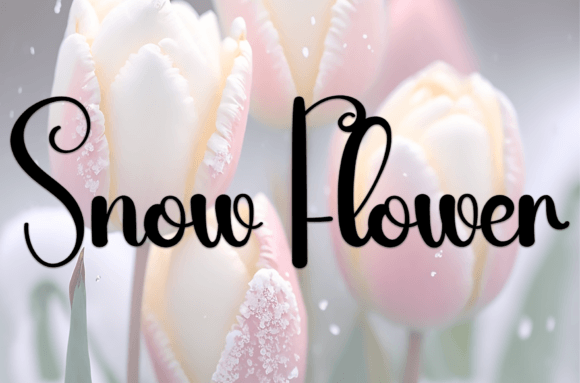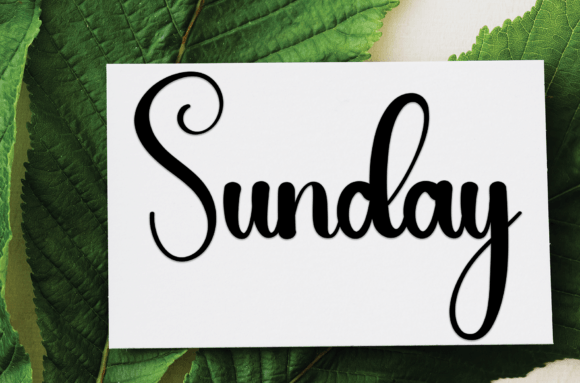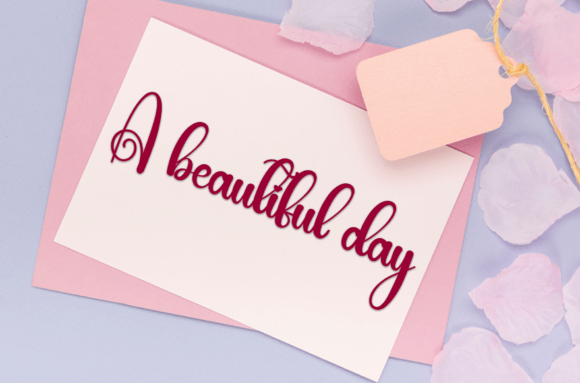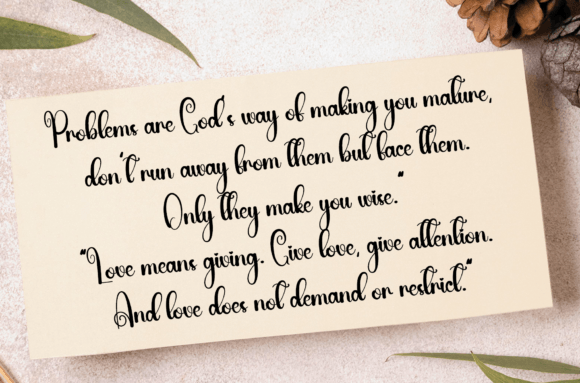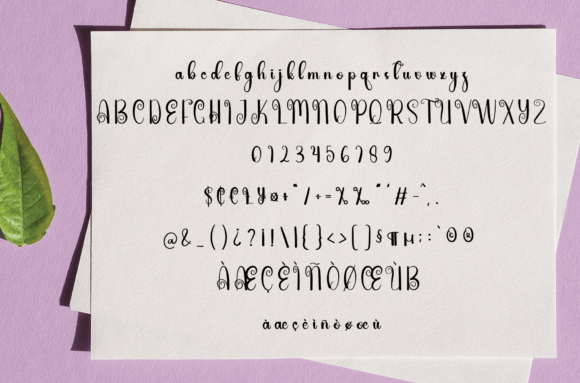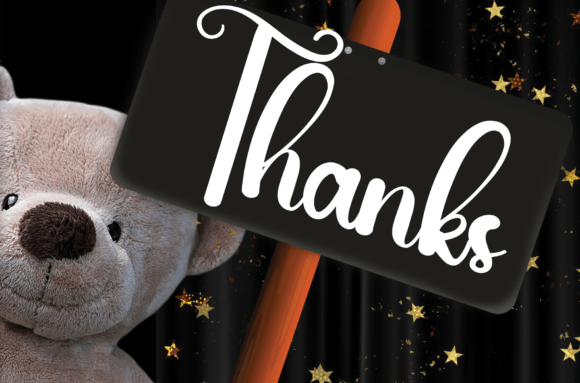
Introduction to Glosy Font
Glosy is a sweet and friendly handwritten font.
Creative and cute, this font is ideal for writing wedding invitations, cards, or any other design that might need a fun touch .